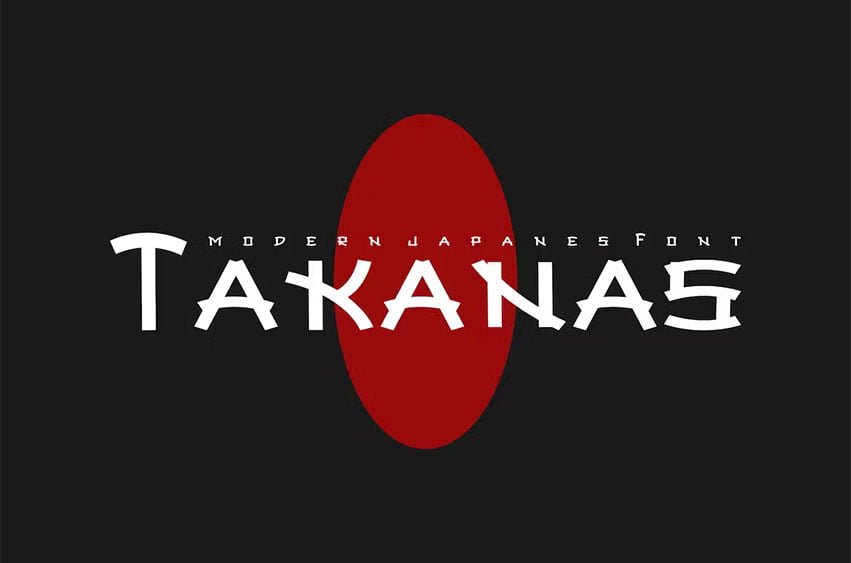
Takanas Font Modern Font is a bold and authentic display font. The font is suitable for any branding project like logo, esport, and many more. outstanding in a wide range of contexts.